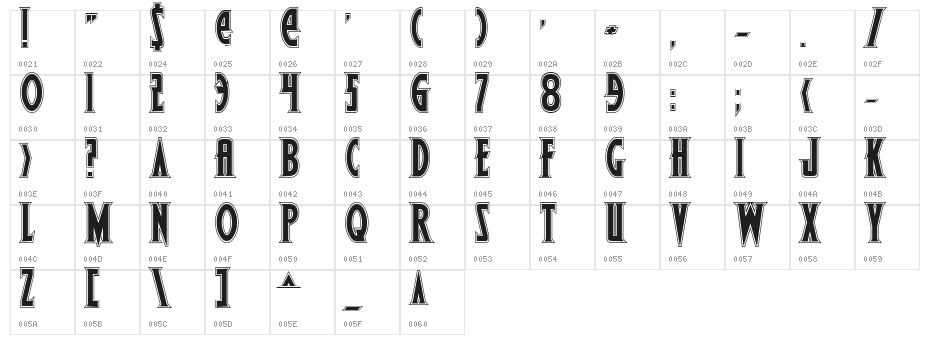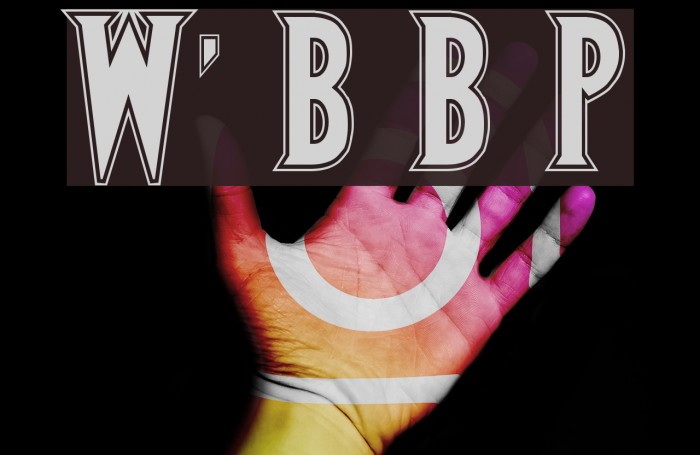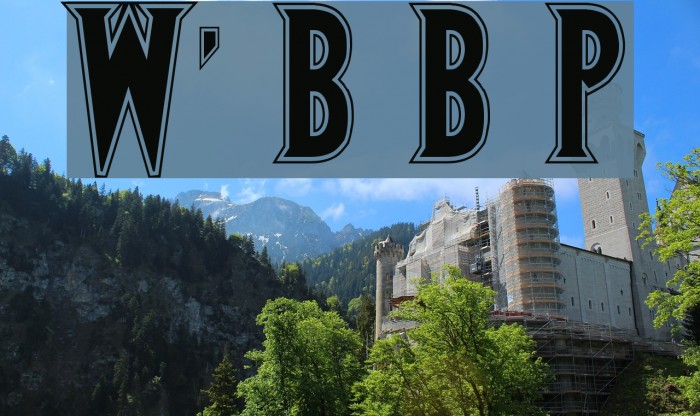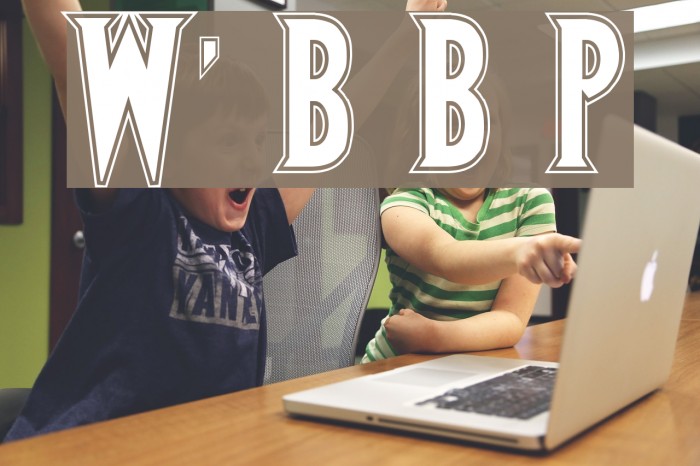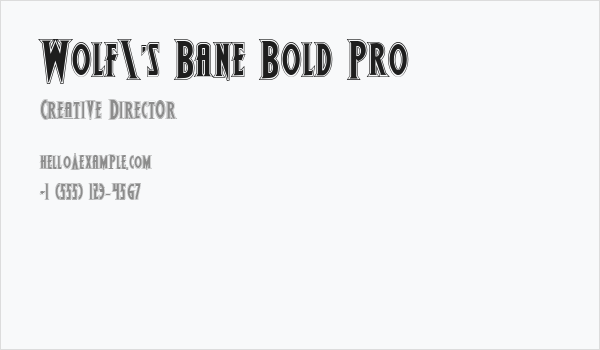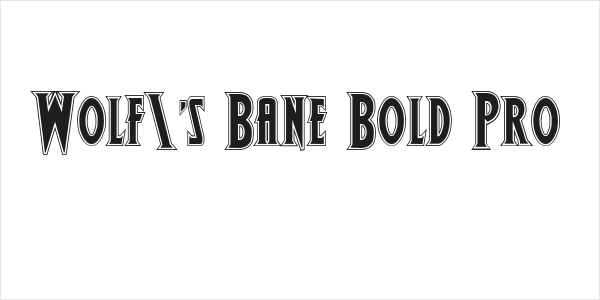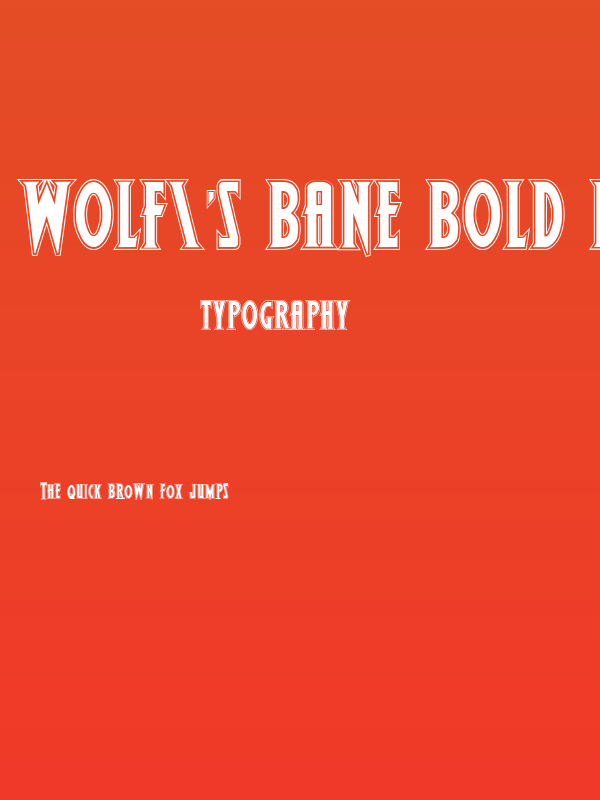
Wolf's Bane Bold Pro Font
Wolf's Bane Bold Pro Description
This font features a bold and dramatic style with a strong presence. The characters are designed with sharp, angular edges and a thick outline that enhances their visibility and impact. The uppercase letters are particularly striking, with a gothic influence that adds a sense of mystery and intensity. The lowercase letters maintain the same boldness, ensuring consistency across text. Numbers and special characters are equally robust, making this font versatile for various uses. The overall design is reminiscent of classic horror or fantasy themes, making it ideal for projects that require a bold and eye-catching typeface.